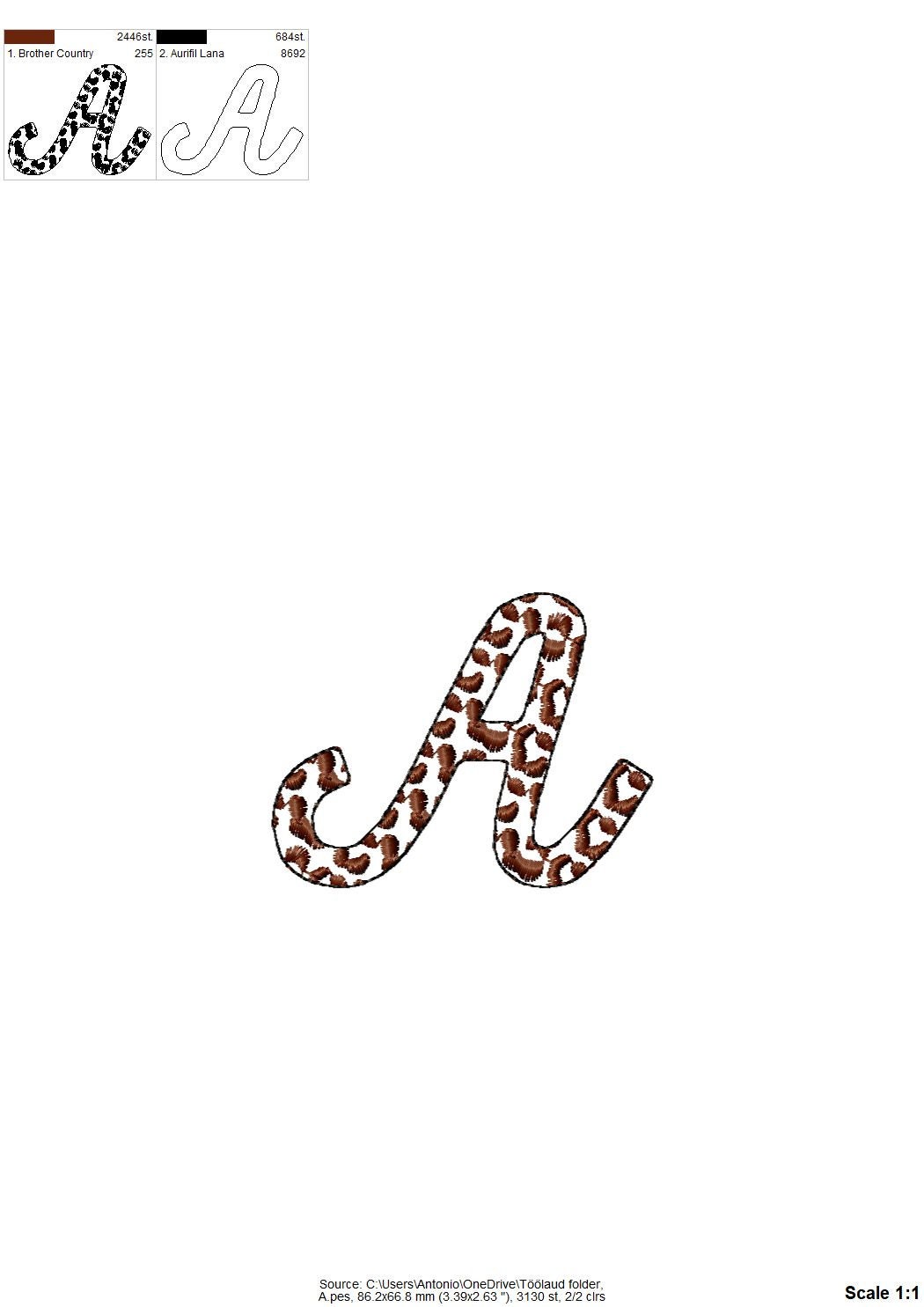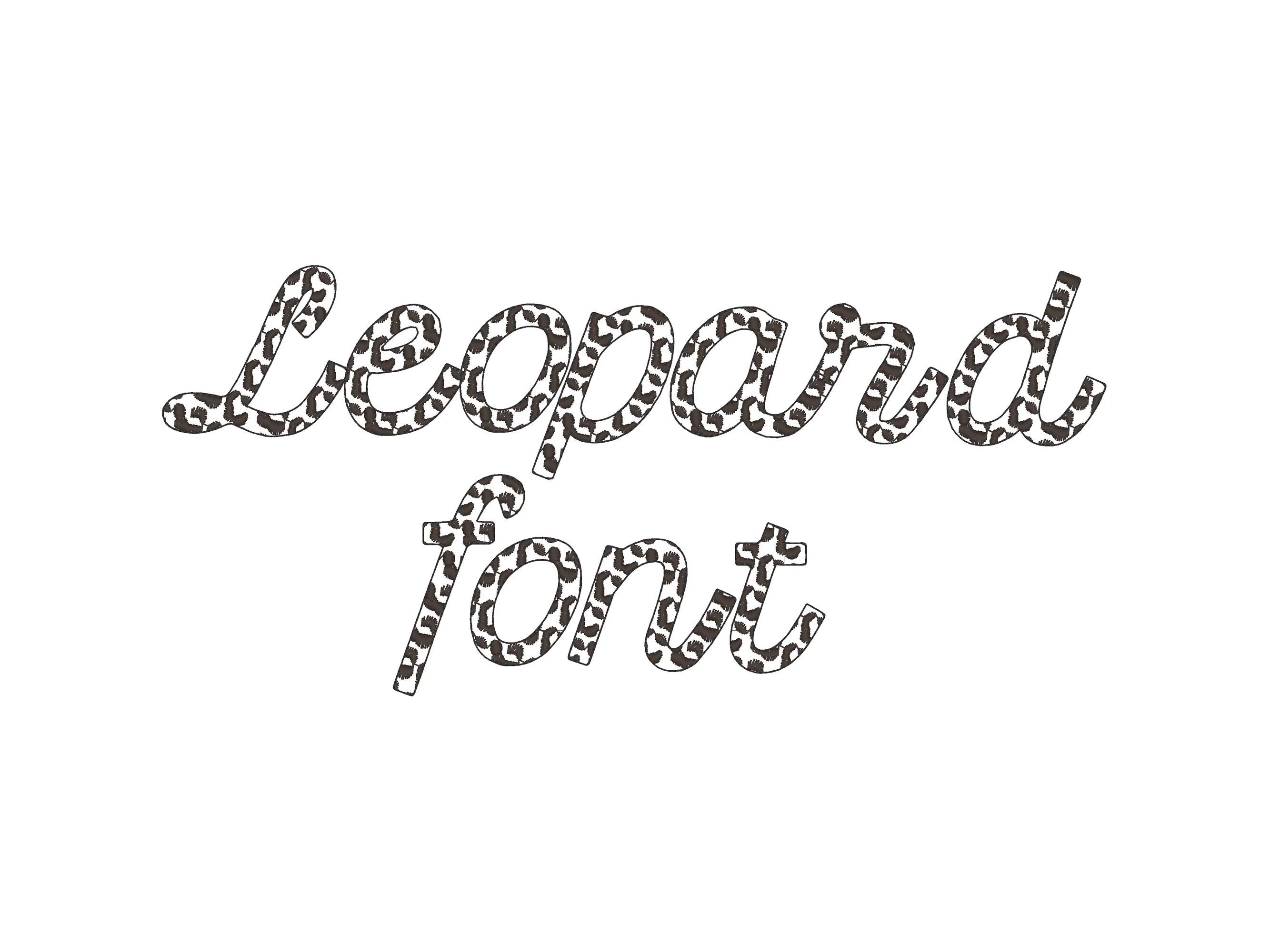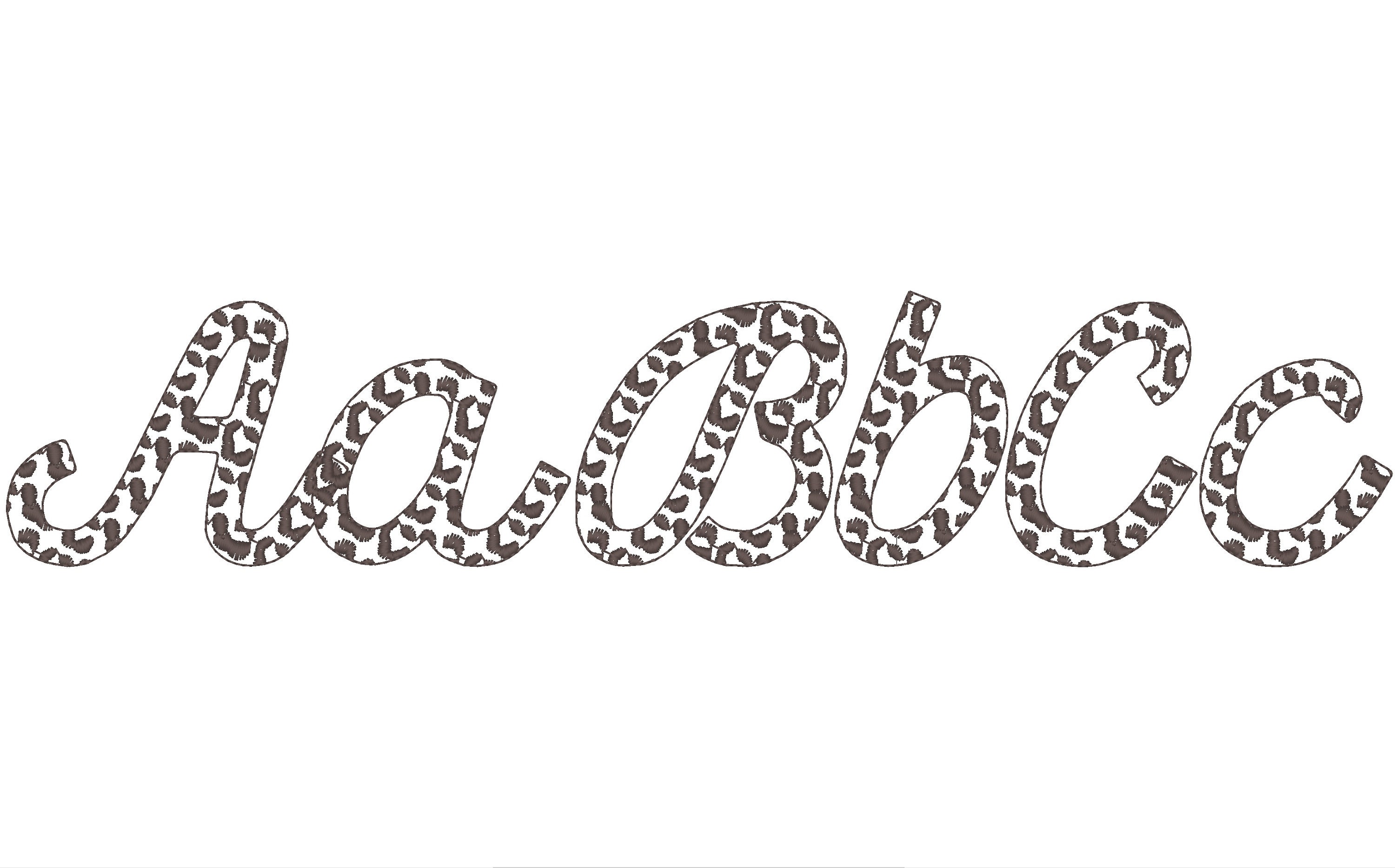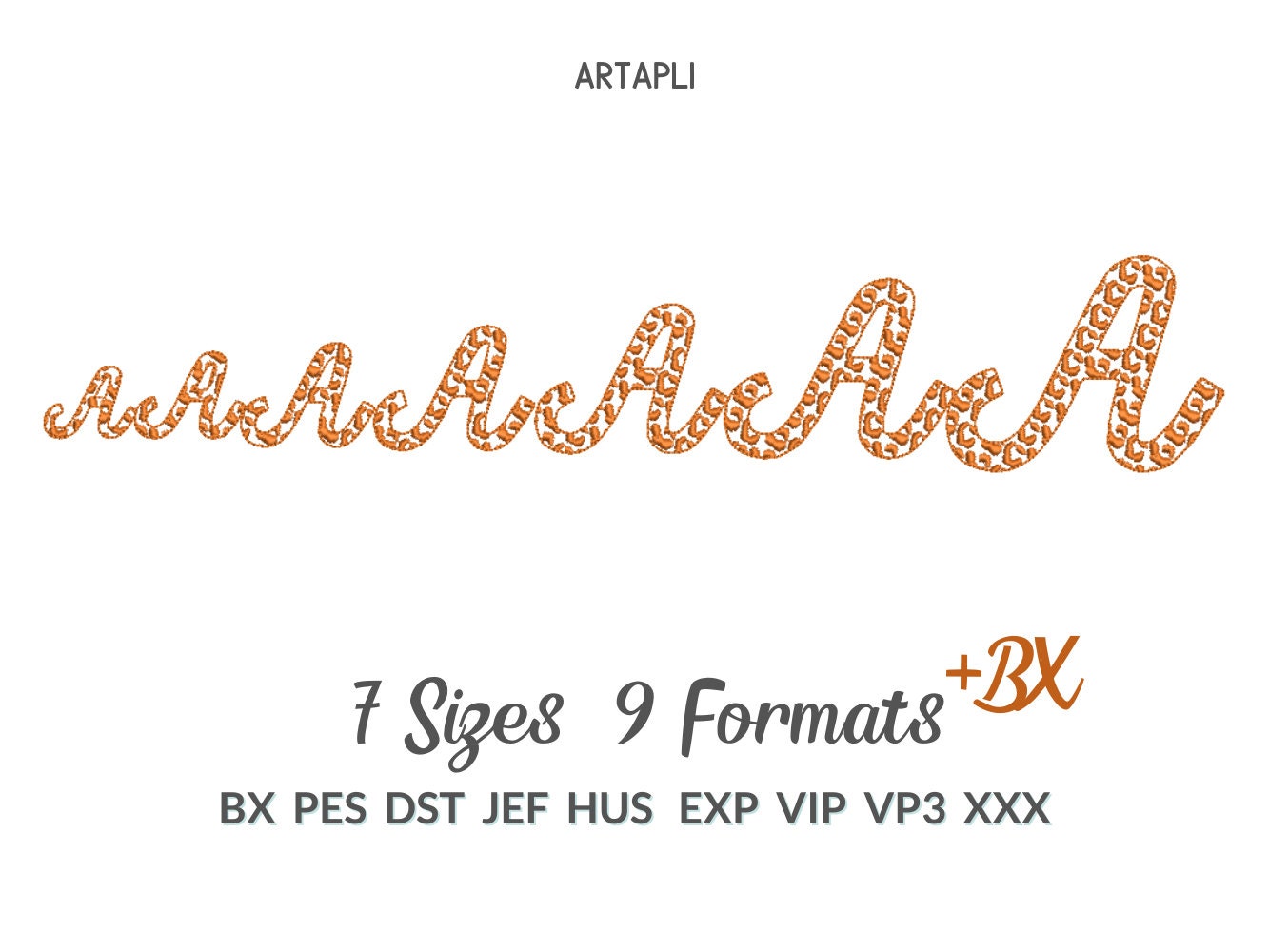
Leopard spots Font alphabet cursive letters and numbers wild animal print monogram machine embroidery designs sizes 1.3 up to 4 inches, BX included
Whole alphabet uppercase and lowercase letters Aa-Zz, and numbers 0-9.
Leopard spots are part of embroidery. This is not an applique. The background fabric looks through. Stunning effect!